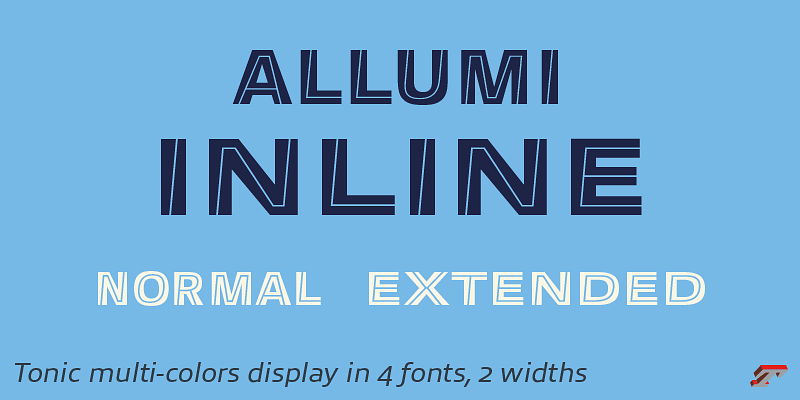
Allumi Inline Font Free Download is a sleek and modern display typeface that blends contemporary style with technical precision. Featuring a distinctive inline effect within its characters, this font adds depth and dimension—making it perfect for technology branding, futuristic themes, editorial titles, signage, and bold packaging designs.
With its clean, semi-extended form and subtle geometric influences, Allumi Inline Font Free Download stands out in both digital and print formats. The inline detailing adds a refined, almost metallic quality to the typography, evoking sophistication and innovation—ideal for brands that want to appear cutting-edge and forward-thinking.
Allumi Inline is best used in larger sizes where its unique inline structure can shine. It pairs beautifully with simple sans-serifs or used as a headline accent in high-tech, luxury, or automotive-related projects.